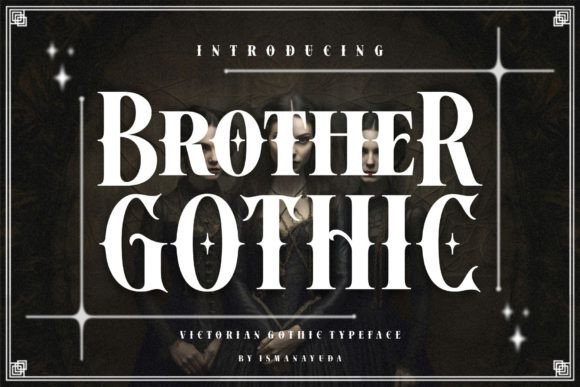
Meet the New Kid on the Block: Brother Gothic Font
Have you ever been rummaging through an old thrift store, stumbling upon a dusty leather jacket that speaks to your rebellious soul? That’s exactly the kind of feeling we aimed to capture with our new font, Brother Gothic Font. This bold, edgy typeface is a perfect blend of Victorian elegance and biker attitude, making it the perfect addition to any designer’s toolkit.
The Brother Gothic Font is more than just a stylish font – it’s a versatile tool that can be used across a wide range of projects, from gritty street art to luxurious fashion branding. With its gothic flair and rugged texture, it’s the perfect way to add some edge to your designs. Whether you’re a seasoned pro or just starting out, the Brother Gothic Font is a valuable addition to any designer’s arsenal.
Brother Gothic Font Key Features
- Font Family: Brother Gothic
- Character Count: 256 characters per font
- Unique Characteristics: Distinctive Gothic style with strong vertical strokes and ornate details, suitable for titles, headings, and emphasis
Brother Gothic Font Review
I recently had the chance to work with the Brother Gothic font, and I have to say, it’s a unique and intriguing choice. Here are my thoughts on what works well and what doesn’t.
✨ The font’s gothic-inspired aesthetic is perfect for creating a dramatic and mysterious atmosphere. It’s ideal for projects that require a sense of elegance and sophistication.
✨ The font’s wide range of weights and styles makes it highly customizable, allowing you to tailor it to your specific design needs.
✨ The font is highly legible, even at small sizes, making it suitable for body text as well as headlines.
⚠️ The font’s gothic style can be overwhelming if not used sparingly. It’s essential to balance it with other design elements to avoid visual fatigue.
⚠️ The font’s lack of rounded edges can make it feel harsh or even brutal at times. Be cautious when using it for projects that require a softer tone.
The Brother Gothic font is a solid choice for designers looking to add a touch of drama and elegance to their projects. While it has its limitations, it’s a versatile and highly customizable font that can be used in a variety of contexts.
- Best for: dramatic, elegant, or sophisticated designs
- Not ideal for: projects requiring a soft or playful tone
The Brother Gothic Font is commonly used in:
- Dark and mysterious designs
- Historical or vintage-themed designs
- Emphasizing bold text or headlines
To get the most out of the Brother Gothic Font, try the following:
- Combine it with other bold fonts for contrast
- Use it for emphasis in headings or titles
- Experiment with different font sizes and styles
Alternatives to Brother Gothic Font
1. Akkurat
Akkurat is a serif font with a similar feel to Brother Gothic, but with a more modern twist. It’s ideal for use in body text where a clear, readable font is required. Akkurat is a good choice when you want a font that’s easy on the eyes and suitable for long-form content.
Compared to Brother Gothic, Akkurat is more refined and has a more even spacing between letters. It’s also more versatile and can be used in a variety of contexts, from print to digital media.
Merriweather is a classic serif font with a strong, elegant feel. It’s similar to Brother Gothic in its bold, eye-catching style, but with a more traditional look and feel. Merriweather is a good choice when you want a font that’s both stylish and easy to read.
Compared to Brother Gothic, Merriweather is more traditional and has a more formal feel. It’s also more versatile and can be used in a variety of contexts, from body text to headings.
3. Playfair Display
Playfair Display is a luxurious serif font with a strong, elegant feel. It’s similar to Brother Gothic in its bold, eye-catching style, but with a more ornate and decorative look. Playfair Display is a good choice when you want a font that’s both stylish and attention-grabbing.
Q: Are there any font variations or styles available for the Brother Gothic Font?
Yes, the Brother Gothic Font family includes various styles and weights, including light, regular, bold, and condensed. These styles provide designers with a range of options to achieve the desired visual effect and balance in their designs.